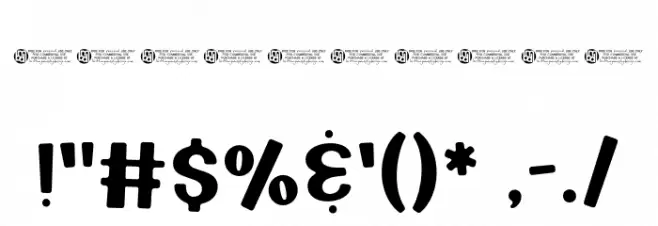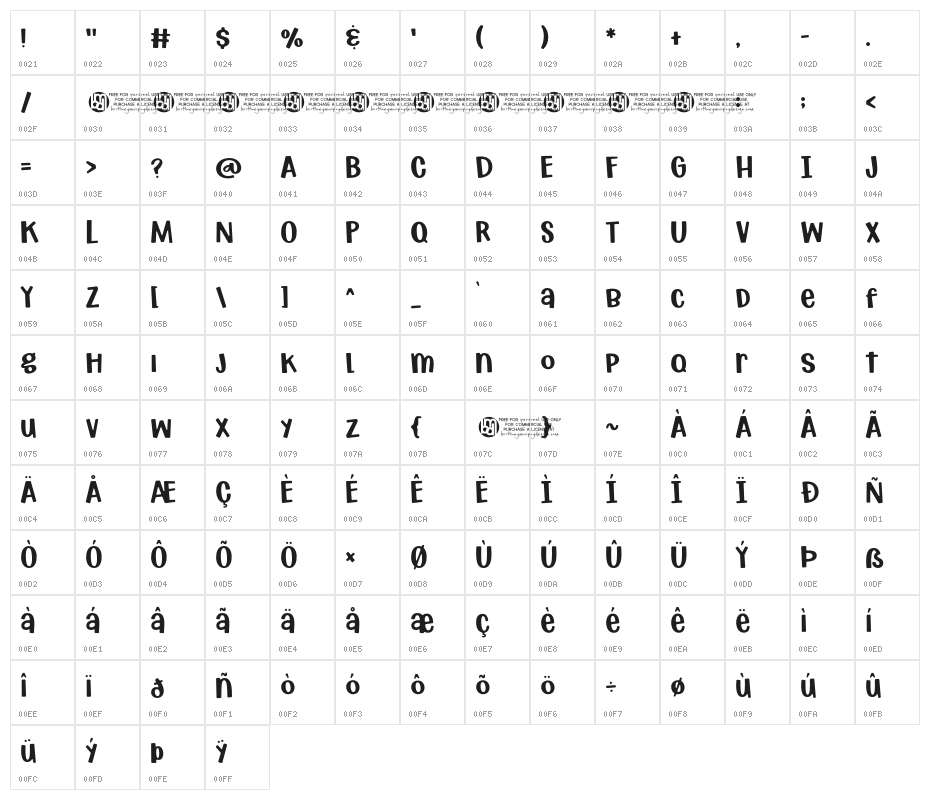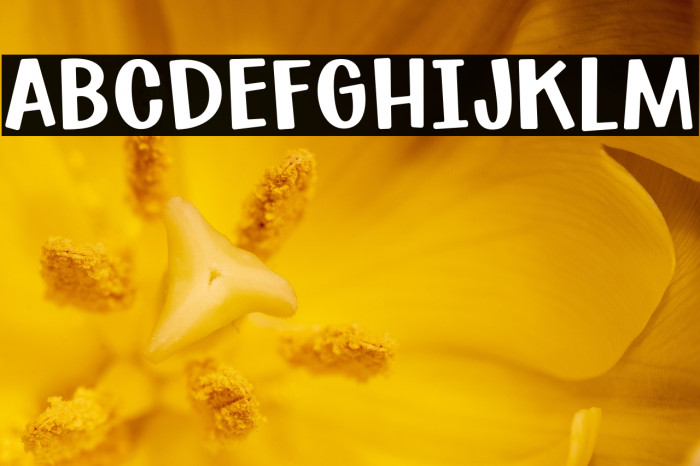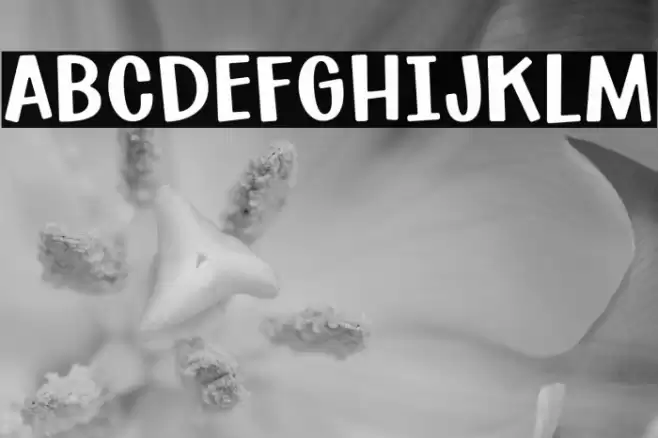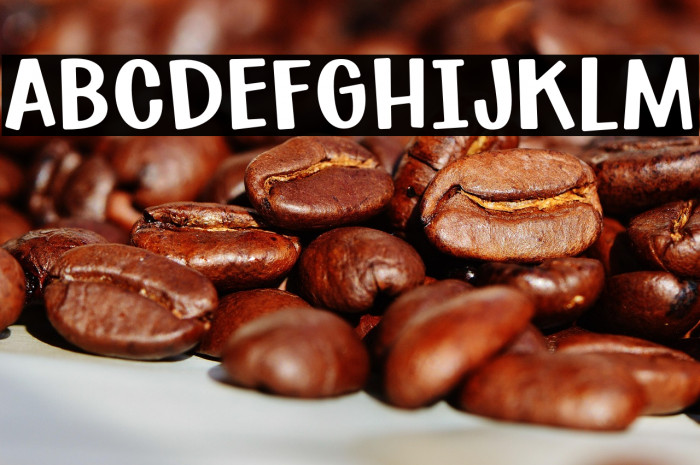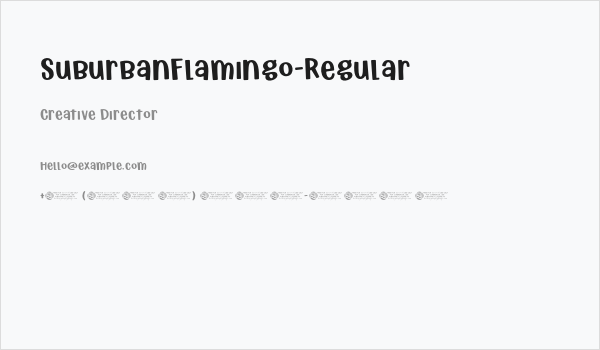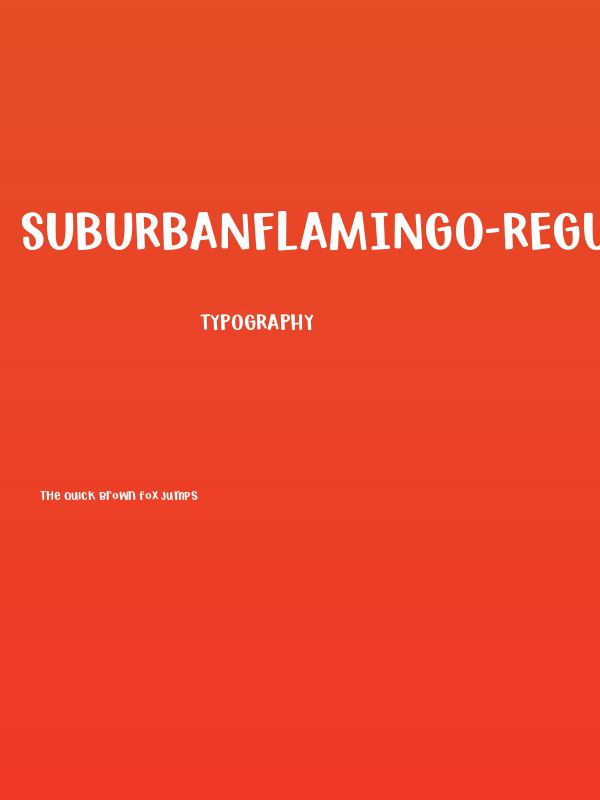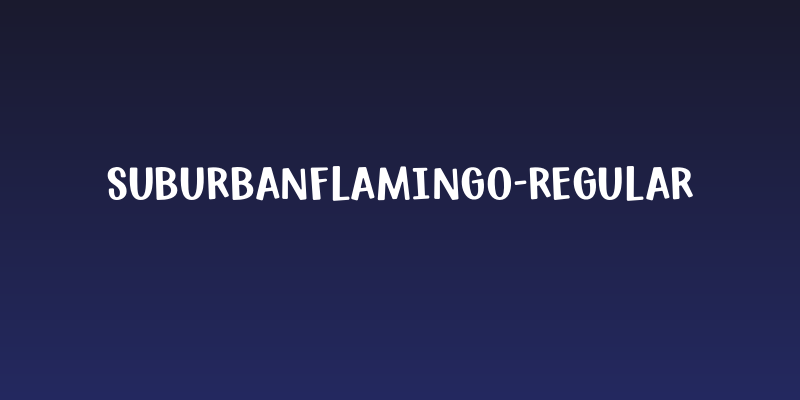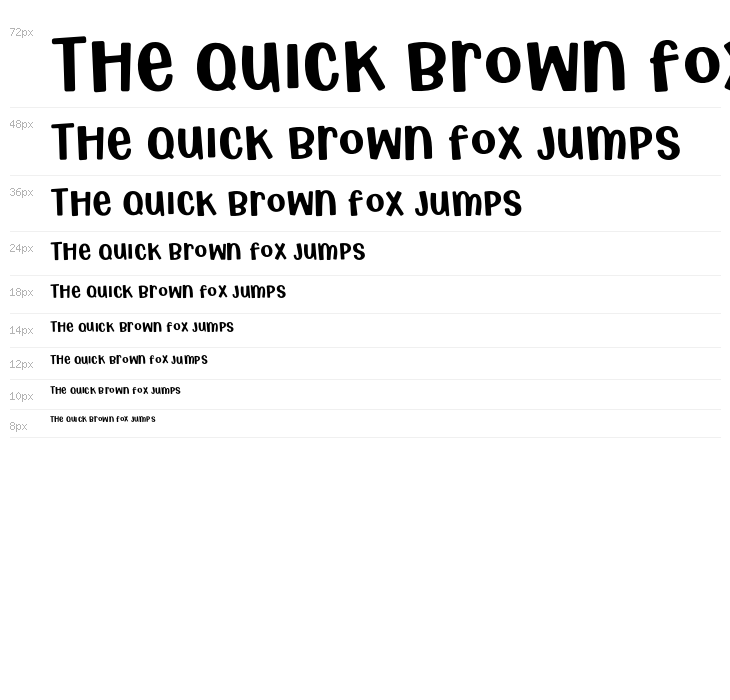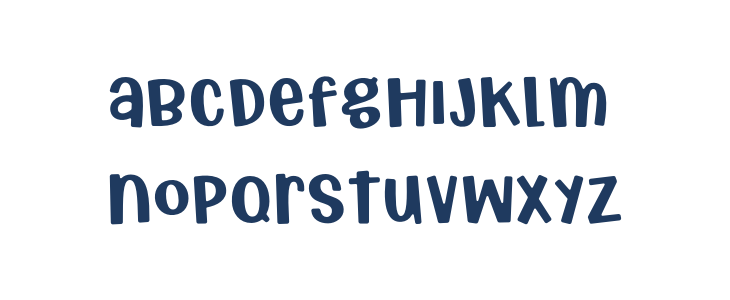
SuburbanFlamingo-Regular Font
SuburbanFlamingo-Regular Description
This playful and whimsical font features bold, rounded characters with a slightly irregular baseline, giving it a hand-drawn and casual appearance. The letters are thick and substantial, with a friendly and approachable vibe. The uppercase and lowercase letters maintain a consistent style, with some characters exhibiting unique quirks, such as the looped 'g' and the curved 'e'. The numerals and special characters are equally bold and maintain the font's overall playful aesthetic. This font is perfect for projects that require a fun and informal touch.
| Proposed Projects | Ideal for children's books, playful branding, greeting cards, and casual invitations. |